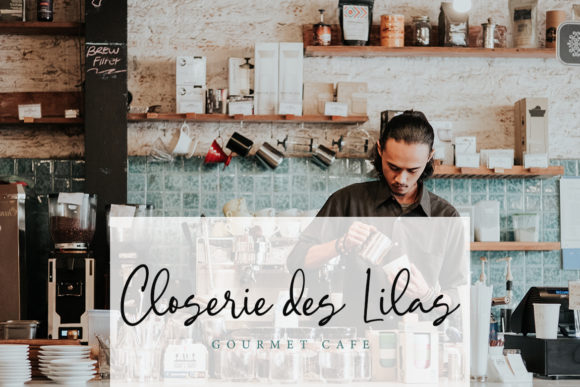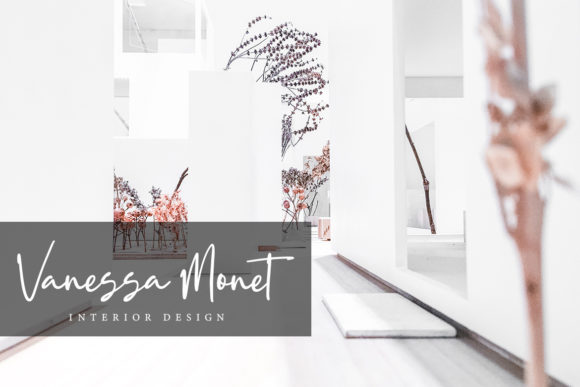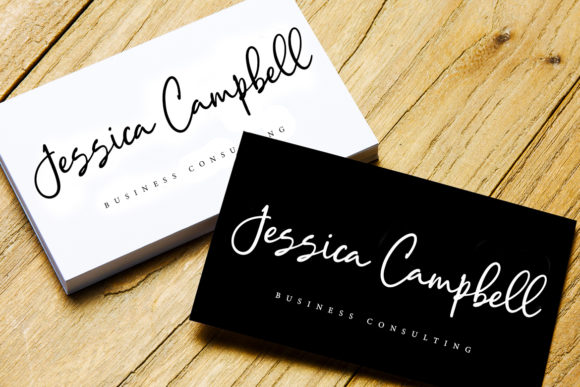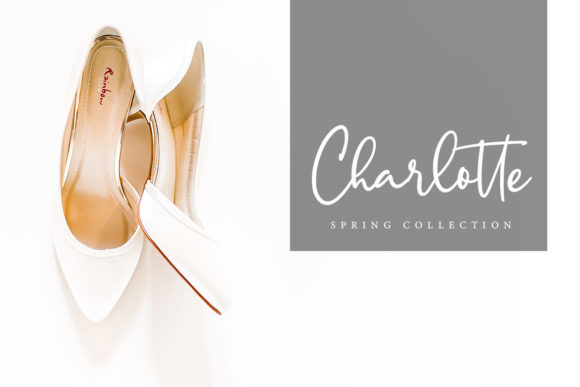
Introducing Estrela Font: The Perfect Blend of Elegance and Charm
Are you a designer or crafter looking for a font that can add a touch of sophistication and whimsy to your design projects? Look no further than Estrela Font, a beautiful and light handwritten font that is full of authentic charm. With Estrela, you can turn any design project into an eye-catcher that will leave a lasting impression on your audience.
What is Estrela Font?
Estrela Font is a carefully crafted handwritten font that exudes elegance and charm. Its light and airy feel makes it perfect for a wide range of design projects, from branding and advertising to packaging and digital media. Whether you’re looking to create a cohesive visual identity for your business or add a personal touch to your craft projects, Estrela Font is the perfect choice.
Unique Characteristics of Estrela Font
So, what sets Estrela Font apart from other fonts? Here are a few of its unique characteristics:
- Authentic Charm: Estrela Font has a genuine, handcrafted feel that is sure to capture the hearts of your audience. Its imperfections and quirks add a level of personality and whimsy that is hard to find in digital fonts.
- Light and Airy: Estrela Font is a light and airy font that is perfect for creating a sense of elegance and sophistication. Its delicate feel makes it ideal for use in designs where you want to convey a sense of refinement and luxury.
- Highly Versatile: Estrela Font is an incredibly versatile font that can be used in a wide range of design projects. Whether you’re creating a logo, brochure, or social media graphic, Estrela Font is the perfect choice.
How to Use Estrela Font in Your Design Projects
Estrela Font is easy to use and can be incorporated into your design projects in a variety of ways. Here are a few ideas to get you started:
- Branding and Identity: Use Estrela Font to create a cohesive visual identity for your business. Its elegant feel makes it perfect for use in logos, business cards, and letterheads.
- Digital Media: Estrela Font is perfect for use in digital media, including social media graphics, blog posts, and email marketing campaigns.
- Crafting and Scrapbooking: Add a personal touch to your craft projects with Estrela Font. Its whimsical feel makes it perfect for use in scrapbooking, journaling, and other paper crafts.
Tips for Getting the Most Out of Estrela Font
Here are a few tips for getting the most out of Estrela Font:
- Experiment with Different Sizes: Estrela Font looks great in a variety of sizes, from large headings to small body text. Experiment with different sizes to find the one that works best for your design project.
- Pair it with Other Fonts: Estrela Font pairs well with a variety of other fonts, including serif and sans-serif fonts. Experiment with different font combinations to find the one that works best for your design project.
- Use it in Combination with Images: Estrela Font looks great in combination with images, particularly those with a vintage or rustic feel. Use it to add a touch of elegance and sophistication to your design project.
Estrela Font is a beautiful and light handwritten font that is full of authentic charm. Its elegant feel and highly versatile nature make it perfect for use in a wide range of design projects, from branding and advertising to crafting and scrapbooking. Whether you’re a designer or crafter, Estrela Font is sure to become a favorite in your font collection. So why wait? Download Estrela Font today and start turning your design projects into eye-catchers!